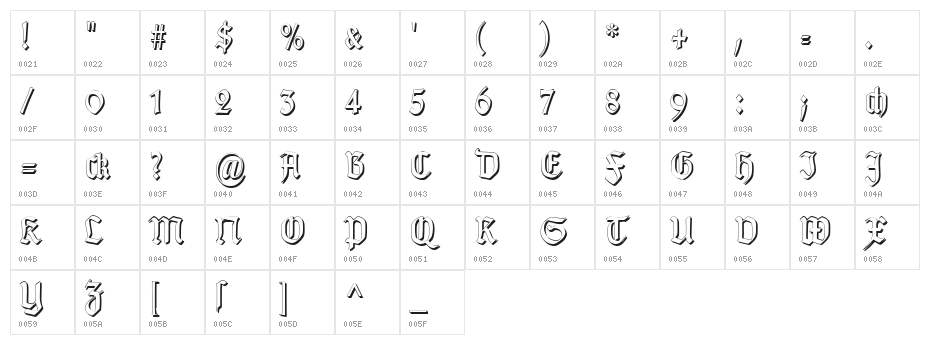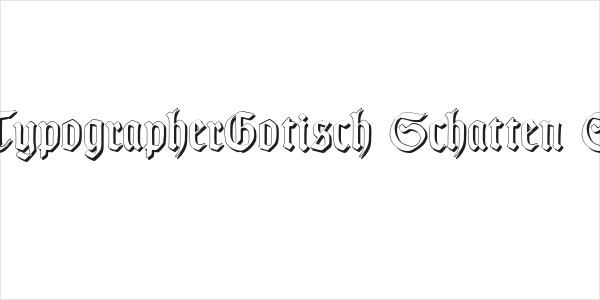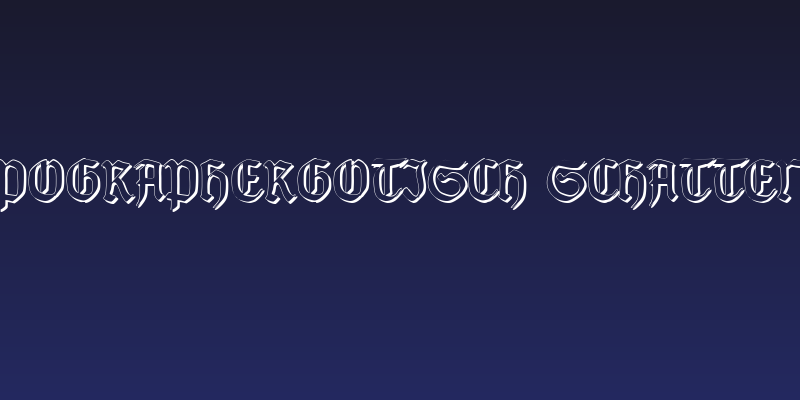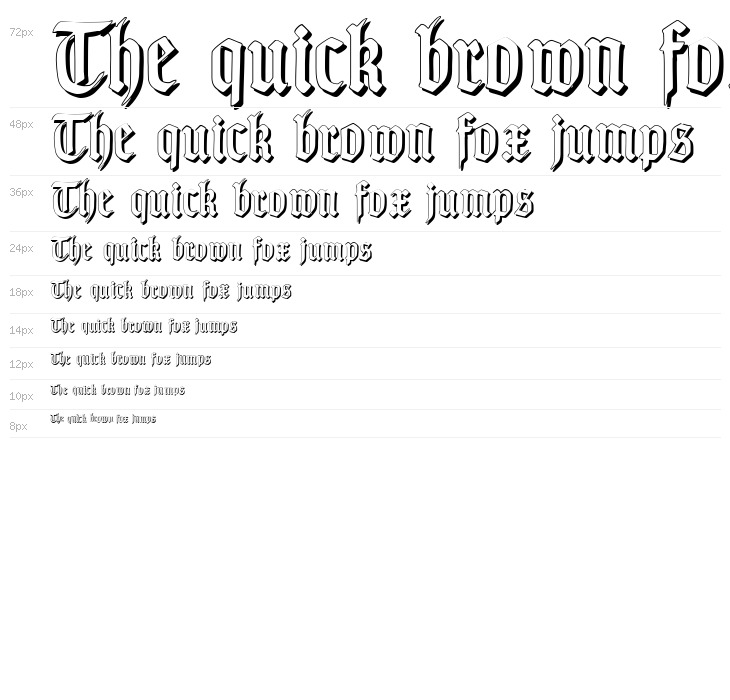
TypographerGotisch Schatten S Font
TypographerGotisch Schatten S Description
This font features a bold, dramatic style with a shadow effect that enhances its Gothic-inspired design. The characters are intricately detailed, with sharp angles and a sense of depth created by the shadowing. The uppercase and lowercase letters maintain a consistent style, with the numerals and special characters also reflecting the same ornate design. This font is highly decorative, making it suitable for projects that require a strong visual impact.
| Proposed Projects | Ideal for use in branding, posters, album covers, and any project needing a dramatic, historical aesthetic. |